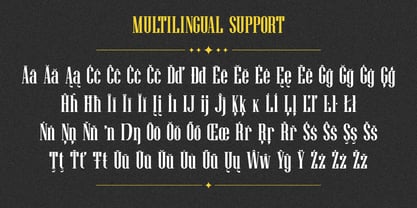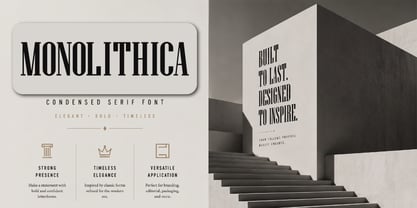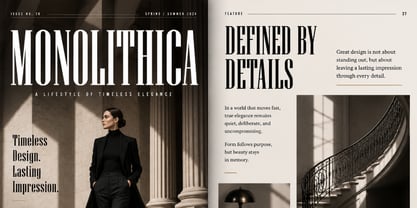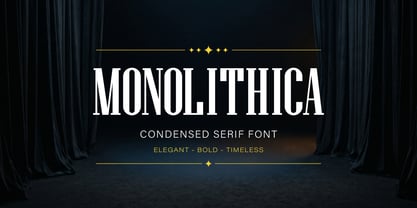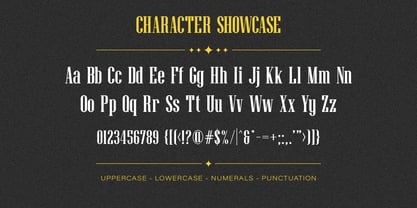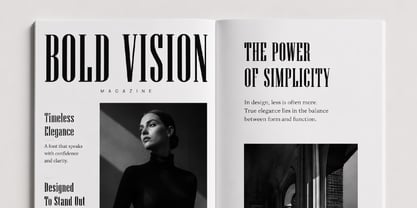
Monolithica
par Pictranoosa
La famille de polices Monolithica a été conçue par Ihsan Nugroho et publiée par Pictranoosa. Monolithica contient 1 styles. En savoir plus sur cette famille
Monolithica is a powerful condensed serif typeface designed to make a bold statement. Featuring dramatic vertical proportions, tight tracking, and sharp, refined serifs, this font commands attention while maintaining an elegant, sophisticated edge. Its towering letterforms create a striking, monumental impact, making it the perfect choice for high-impact headlines, editorial layouts, vintage-modern branding, posters, and book covers. When your design demands strength, structure, and undeniable presence, Monolithica delivers with style.